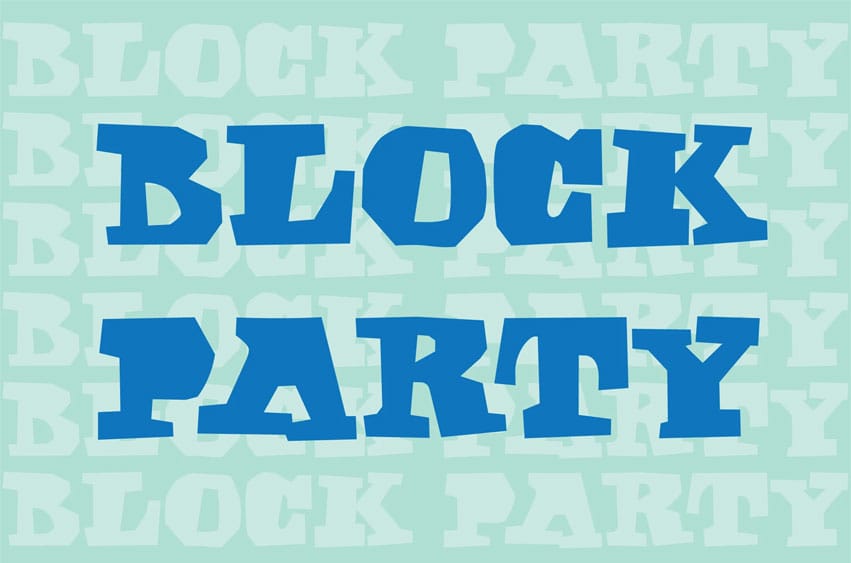
Block Party Font is a bold and funky font that resembles chunky rocks or letters cut from paper. Perfect for any design that needs a fresh and childlike feel to it! The happy-go-lucky letters will bring an air of casual fun to any layout. Grab a cold drink and let’s party on!